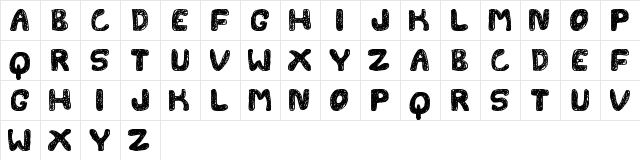
FONTESDA TFB Regular
| Designer | kaiser zhar khan |
Design Context for FONTESDA TFB Typeface
FONTESDA TFB is a composed and adaptable typeface that performs quietly and consistently across a wide range of design contexts.